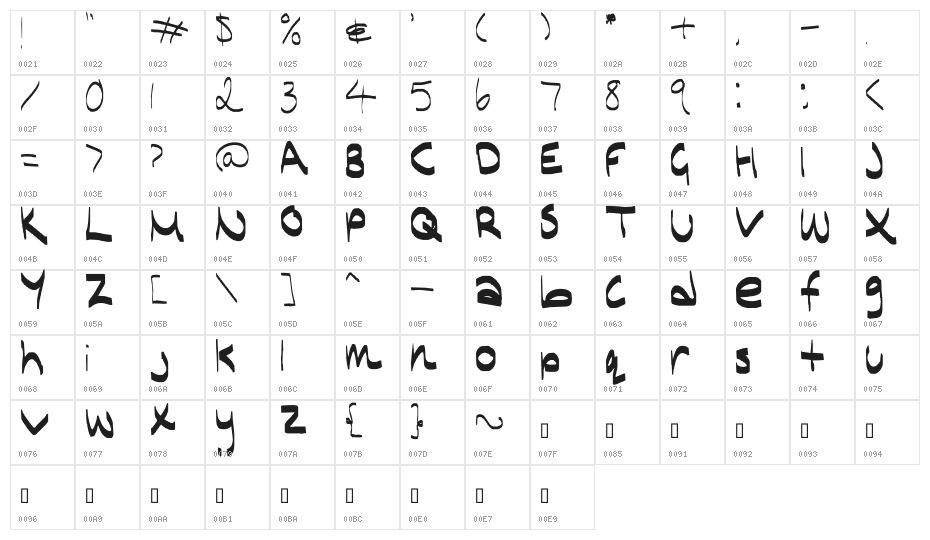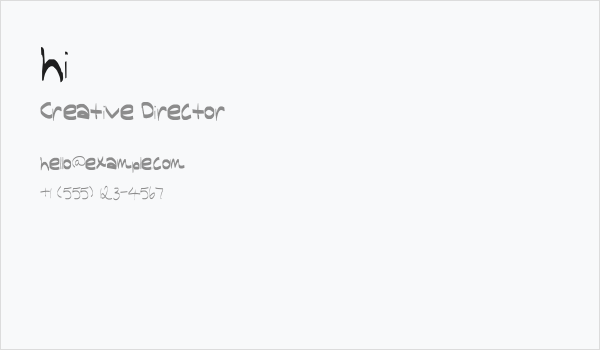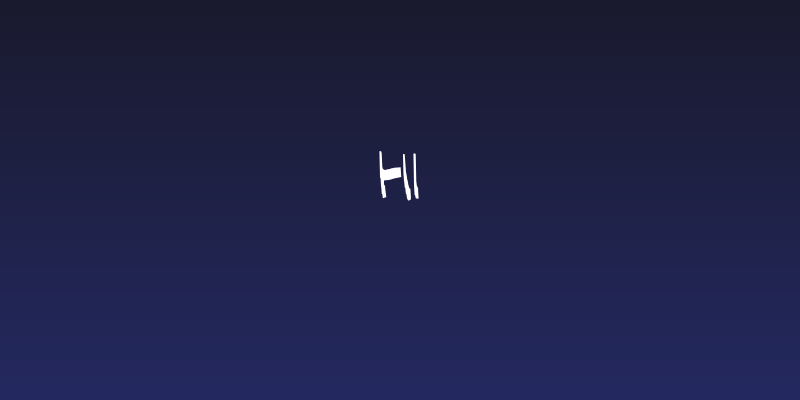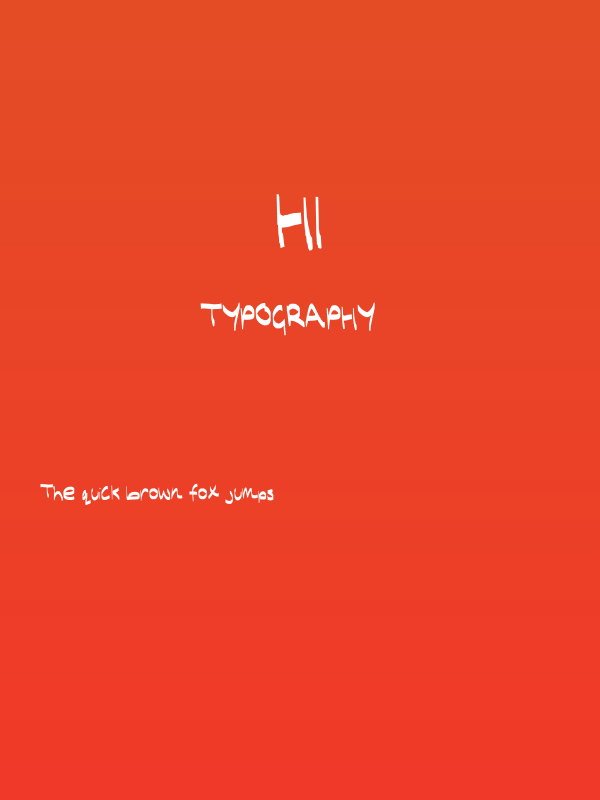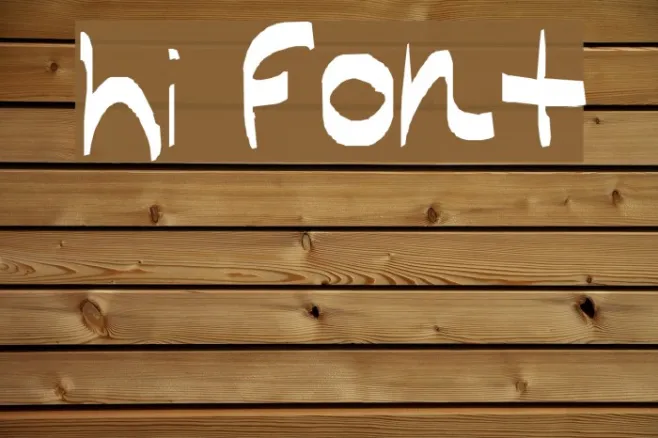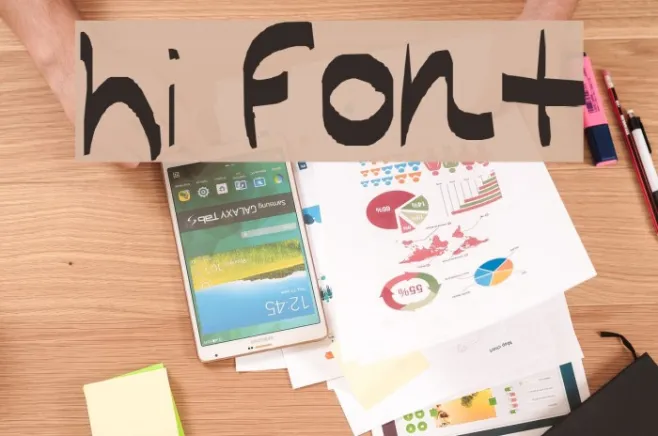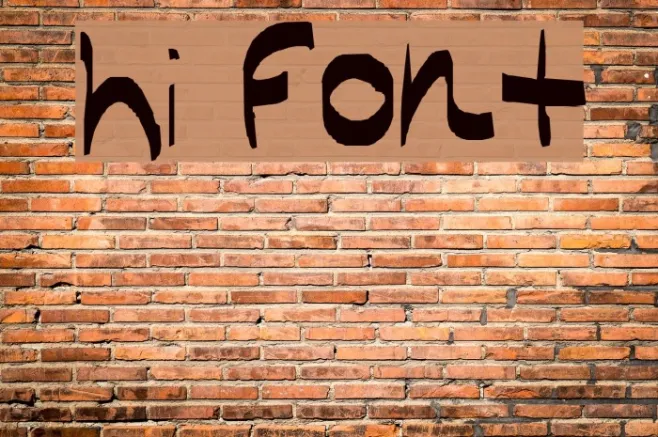
hi Font
hi Description
This font features a playful and artistic style with a hand-drawn appearance. The letters are bold and irregular, giving it a unique and informal look. The uppercase and lowercase letters maintain a consistent style, with varying stroke thickness that adds to its dynamic feel. The numbers and special characters follow the same whimsical design, making it suitable for creative projects. The overall aesthetic is casual and expressive, ideal for capturing attention in a fun and engaging way.